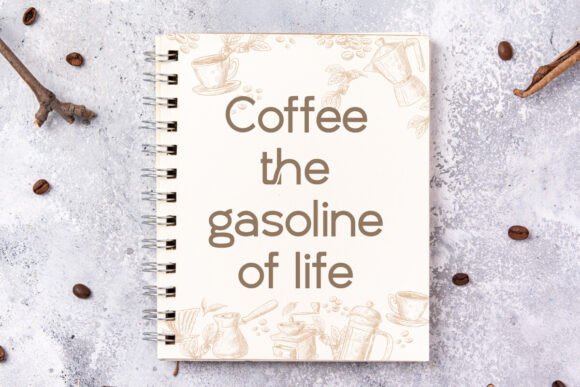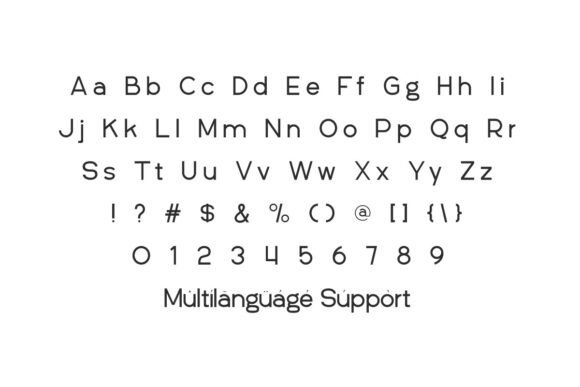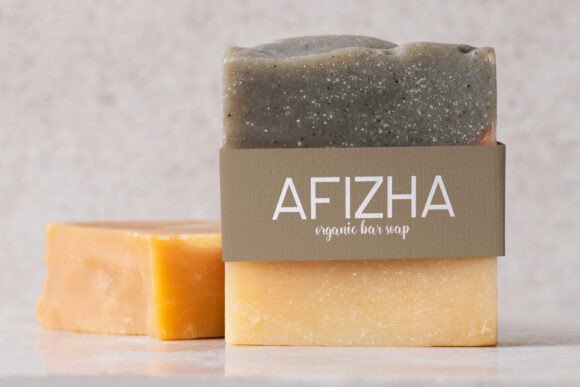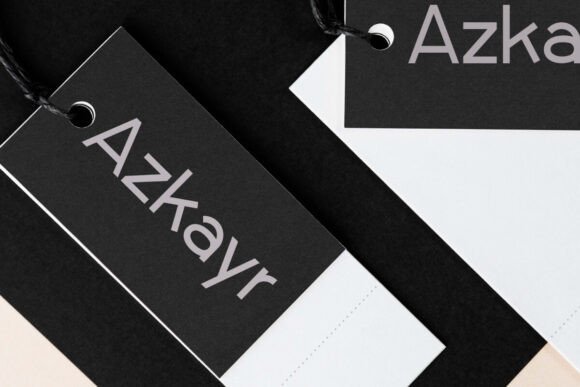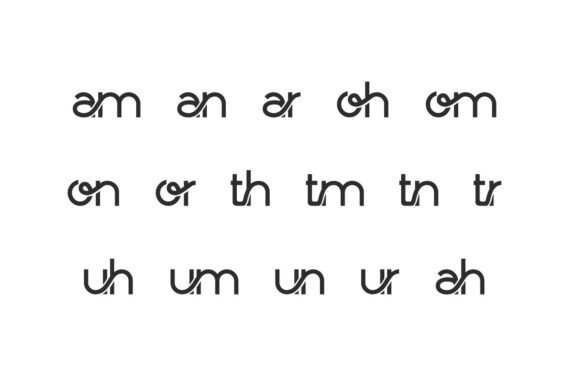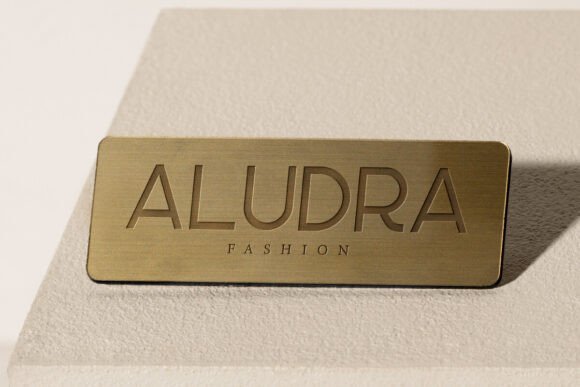
Introduction to North Seano Font
Have you ever found yourself staring at a blank canvas, searching for the perfect font to bring your creative project to life? It’s a moment we’ve all been in – the blank page staring back, waiting for the spark that will set our imagination ablaze. For designers, this moment is a constant companion, and finding the right font can be the difference between a mediocre design and a masterpiece.
That’s where North Seano Font comes in – a ligature sans serif display font with interlocking alternate characters that’s sure to elevate your design to the next level. This versatile font is perfect for a variety of industries, from accessories to writing, and its understated look makes it a valuable addition to any design resource.
With North Seano Font, you’ll have access to a high-quality design element that’s easy to use and customize. Whether you’re working on a creative project that requires a free download or simply looking for a new design resource to add to your collection, this font is sure to impress. Its transparent background and clean lines make it a perfect choice for anyone looking to add a touch of sophistication to their design.
Key Features of North Seano Font
- Unique and stylish font with a transparent background, perfect for adding a touch of elegance to your designs.
- North Seano Font is available in a single size, making it easy to use in a variety of applications.
- Designed to be versatile, North Seano Font is perfect for use in logos, branding materials, and other creative projects.
Honest Review: North Seano Font
I recently came across the North Seano Font, and I must say it’s been a game-changer for my design projects. As a designer, I’m always on the lookout for high-quality fonts that can elevate my work, and this one definitely delivers.
One of the standout features of the North Seano Font is its transparent background, which makes it incredibly versatile and easy to use in creative projects. Whether I’m working on a logo design or a brochure, this font is always a great choice.
Here are some things that work well with the North Seano Font:
- ✨ Transparent background for easy use in various design contexts
- ⚠️ Limited character set, which may not be ideal for longer texts
- ⚠️ Not as customizable as some other fonts I’ve worked with
Overall, I’m thoroughly impressed with the North Seano Font. Its unique design and versatility make it a valuable addition to any designer’s toolkit. If you’re looking for a high-quality font for your next creative project, I highly recommend giving it a try.
Tips for Getting the Most Out of North Seano Font
For best results, use the North Seano Font in combination with other high-quality design elements. Experiment with different font sizes, colors, and arrangements to achieve a unique and eye-catching design.
Common Use Cases for North Seano Font
The North Seano Font is ideal for creative projects, such as social media graphics, posters, or infographics. It is also suitable for professional design projects, such as brochures, business cards, or logos.
Alternatives to North Seano Font
Compared to North Seano Font, Alex Brush Font has a more delicate and intricate design, making it suitable for projects that require a level of sophistication and elegance.
Does North Seano Font come with a transparent background?
Yes, North Seano Font includes a transparent background, making it ideal for creative projects that require a clean and minimalist look. This feature allows you to easily layer the font over images or other design elements without any distracting backgrounds.